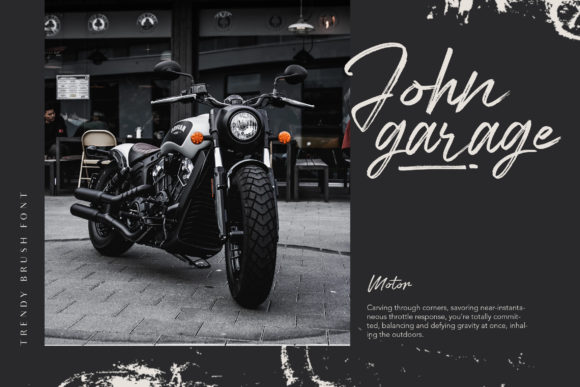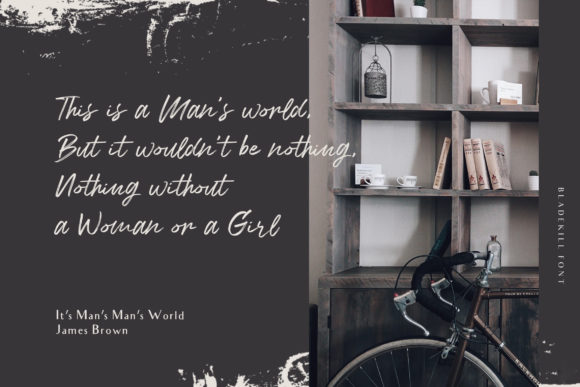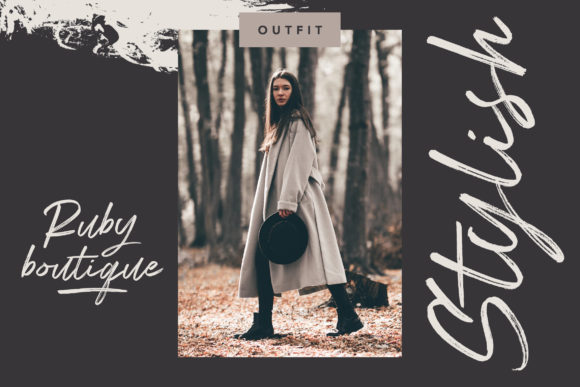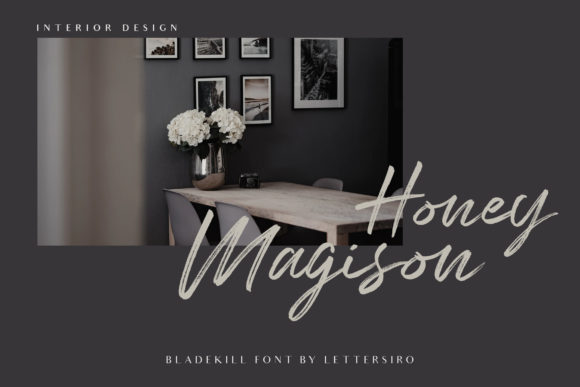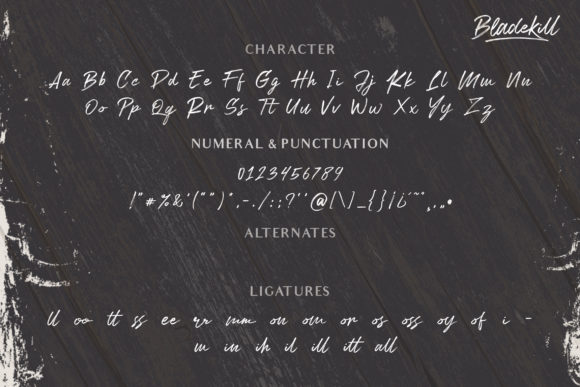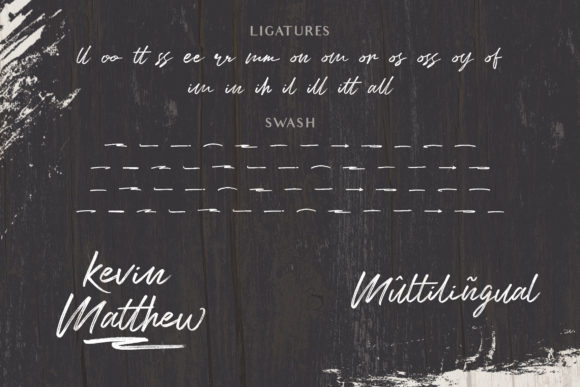
The Bladekill Font: A Beautifully Flowing Script for Creative Projects
Have you ever been in the middle of a design project, and suddenly, you just can’t seem to find the right font? I know I have. It was a few months ago when I was working on a wedding invitation design for a client. They wanted something elegant, yet playful, and I was determined to deliver. That’s when I stumbled upon the Bladekill font. It was love at first sight! 💕
A Personal Review of Bladekill Font
As a designer, I’m always on the lookout for fonts that can help me create stunning designs with ease. The Bladekill font has quickly become one of my go-to scripts. Here’s what I love about it:
- ✨ Beautifully flowing brush handwritten style that adds a personal touch to any design
- ✅ Perfect for a variety of designs, including wedding invitations, thank you cards, logos, and more
- ✨ Highly legible, even at smaller font sizes
- ⚠️ Some users may find the font a bit too script-like for certain designs
- 🤔 Limited availability of certain characters, but this can be addressed with the PUA encoding
One of the standout features of the Bladekill font is its PUA encoding, which allows for easy access to glyphs and swashes. But what are OpenType features, and how can you use them in your designs?
OpenType features are a set of typographic features that allow you to customize the appearance of your text. In the case of the Bladekill font, you can access a range of glyphs and swashes using the OpenType features. Here’s how:
The Story Behind Bladekill Font
The Bladekill font was designed with the intention of creating a beautiful, flowing script that could be used for a variety of creative projects. The designer wanted to create a font that was both elegant and playful, with a unique feel that would set it apart from other scripts.
| What is the Bladekill font? | The Bladekill font is a flowing brush handwritten font designed for creative projects. |
| Is the Bladekill font PUA encoded? | Yes, the Bladekill font is PUA encoded, making it easy to access glyphs and swashes. |